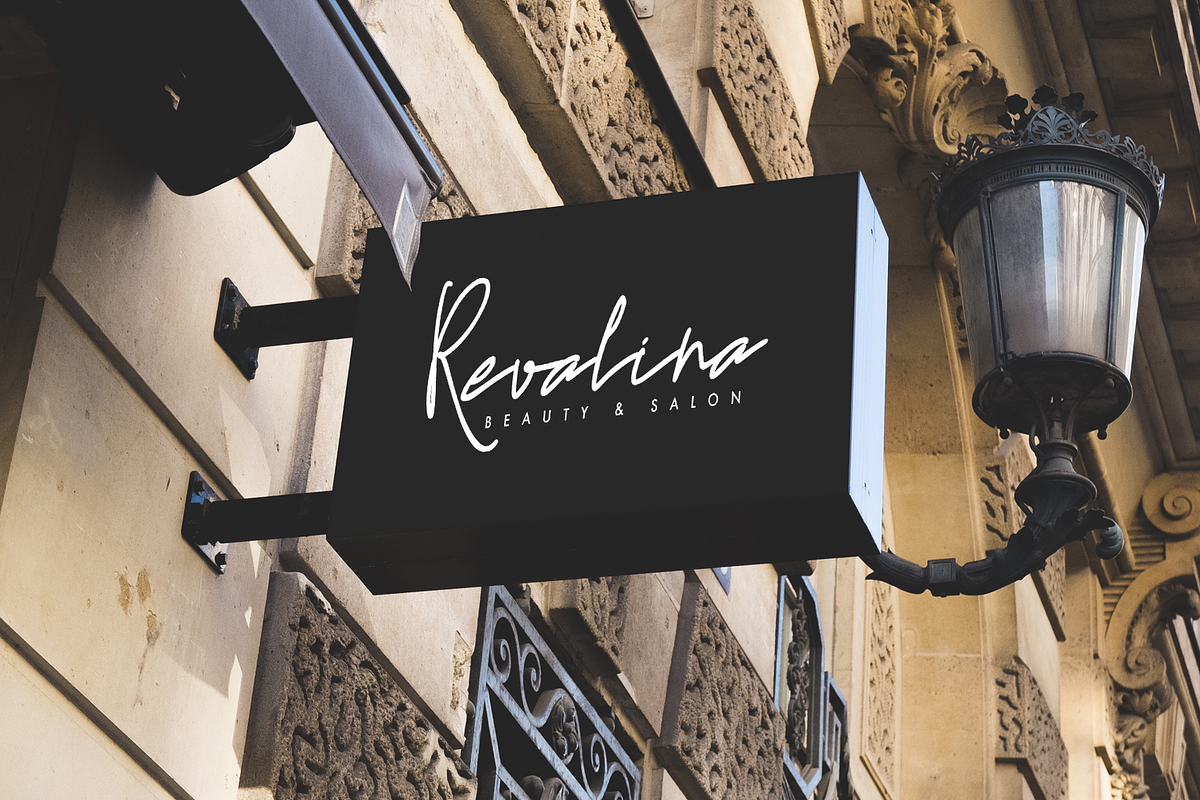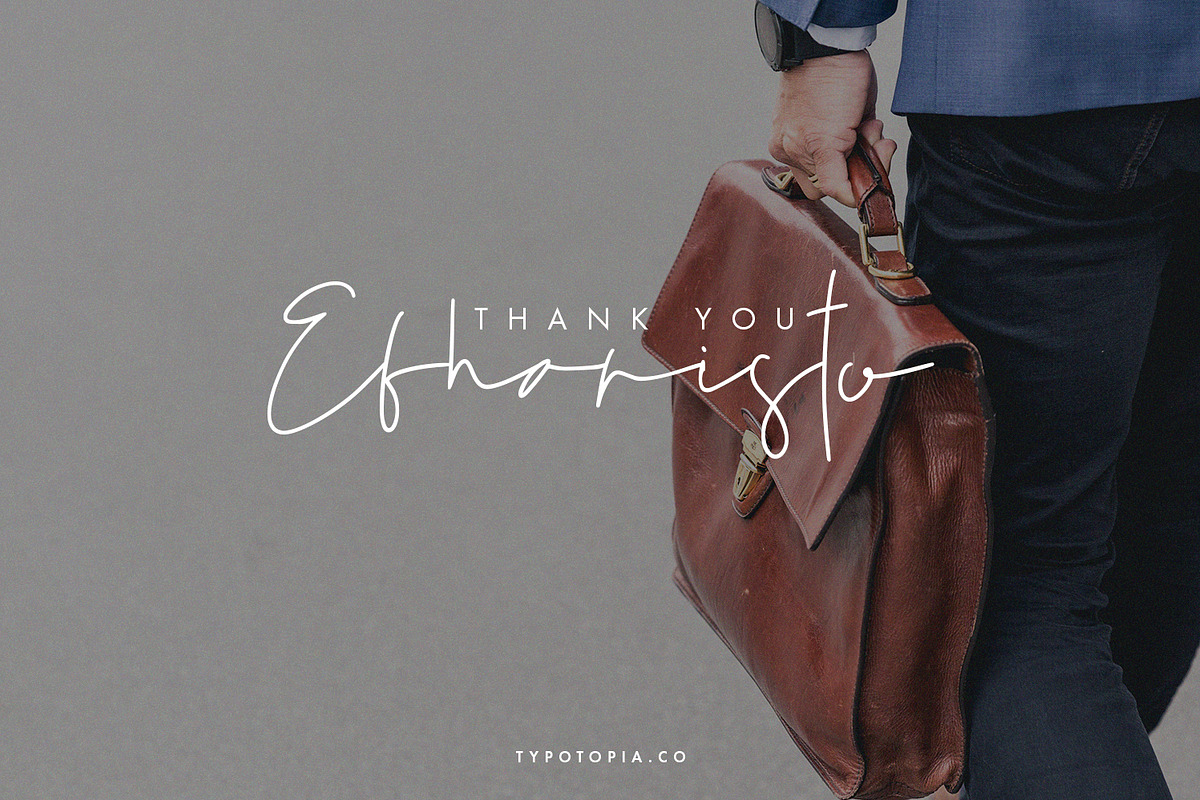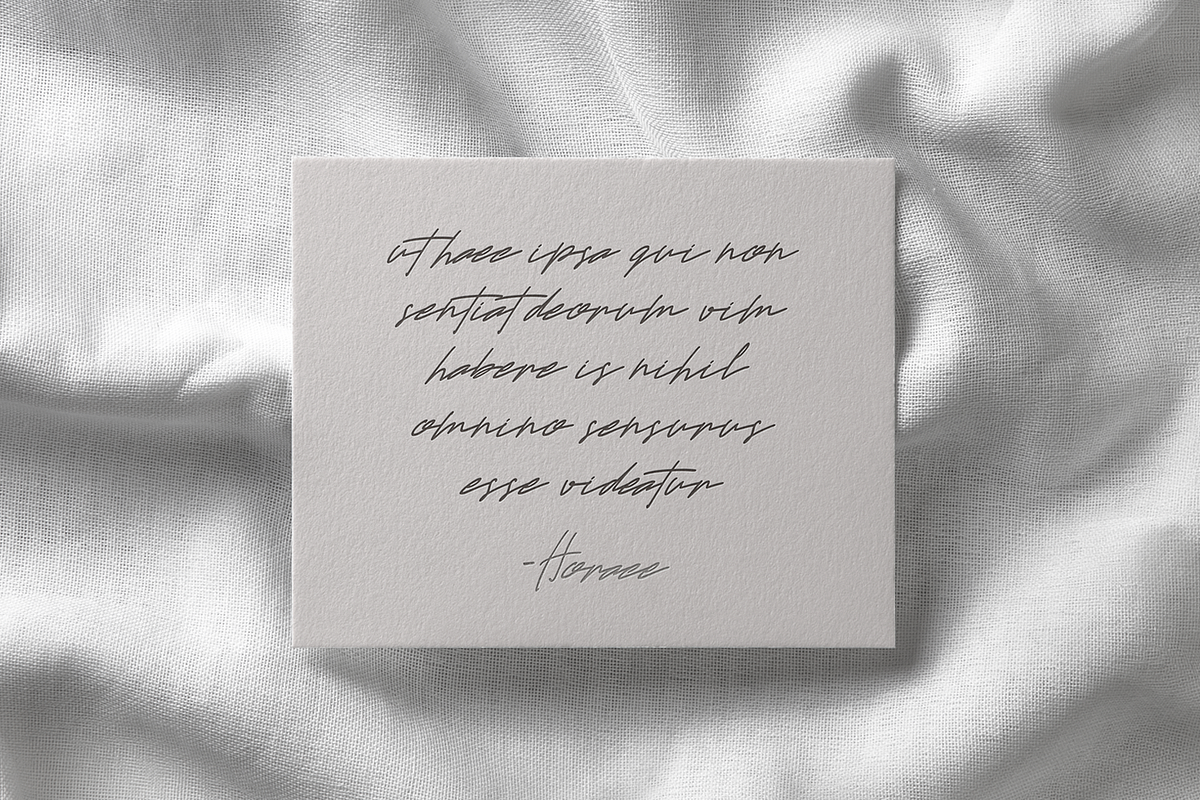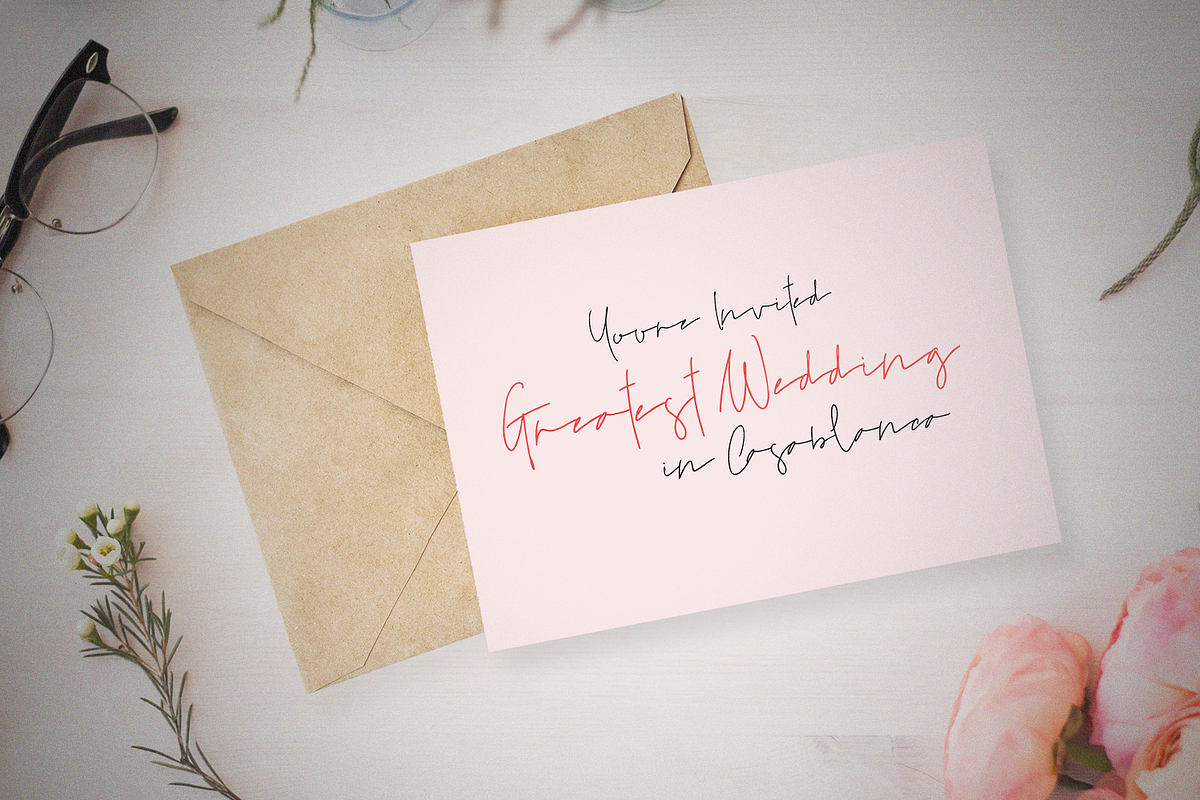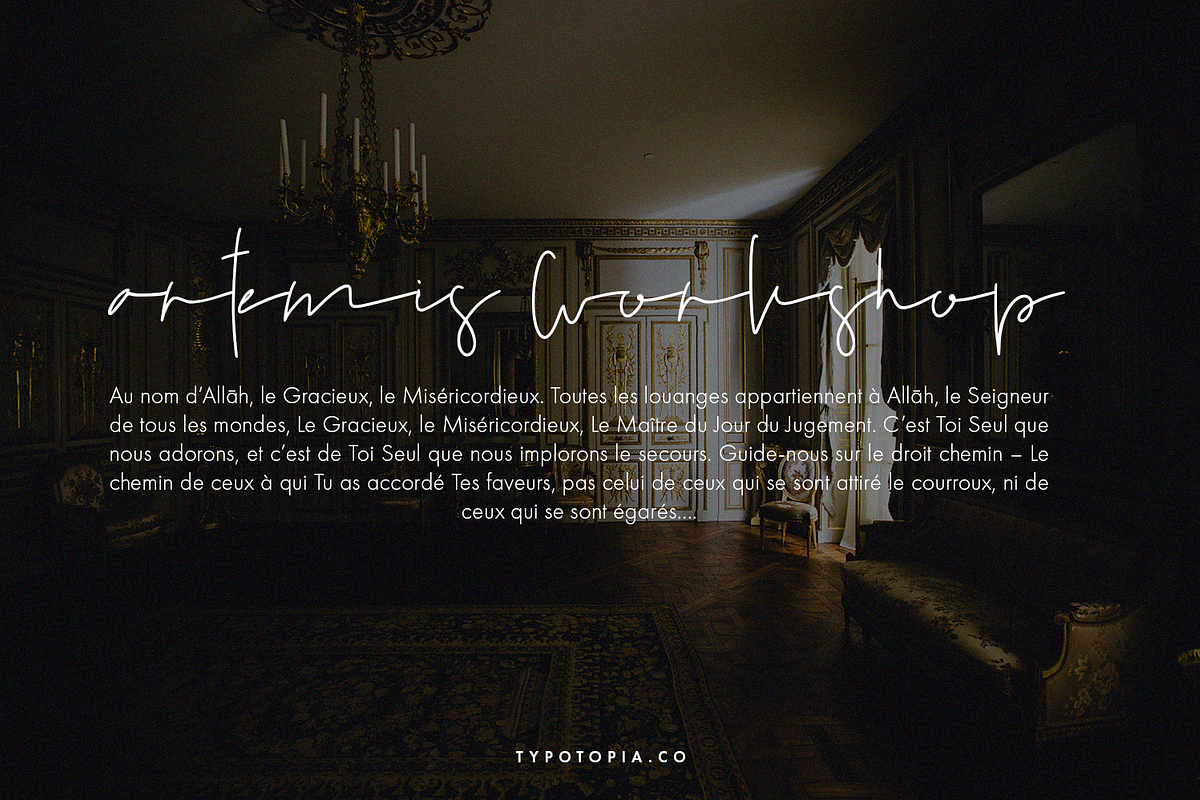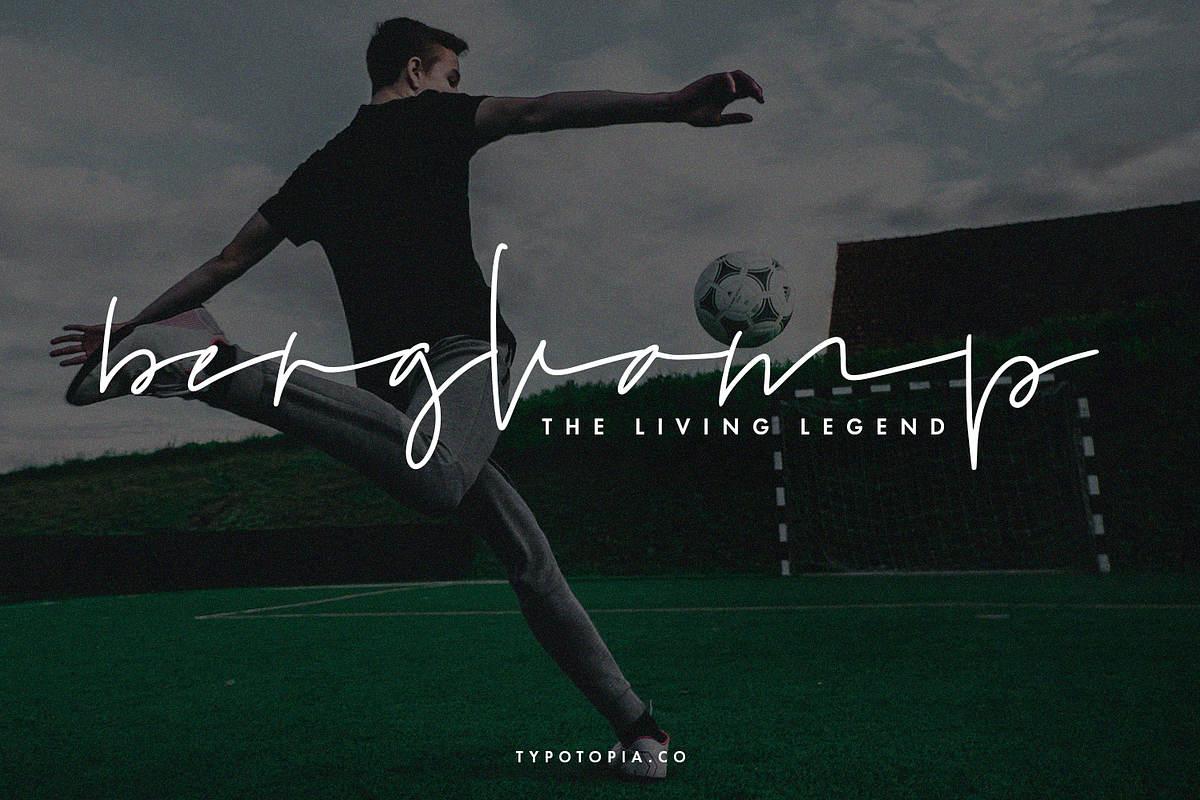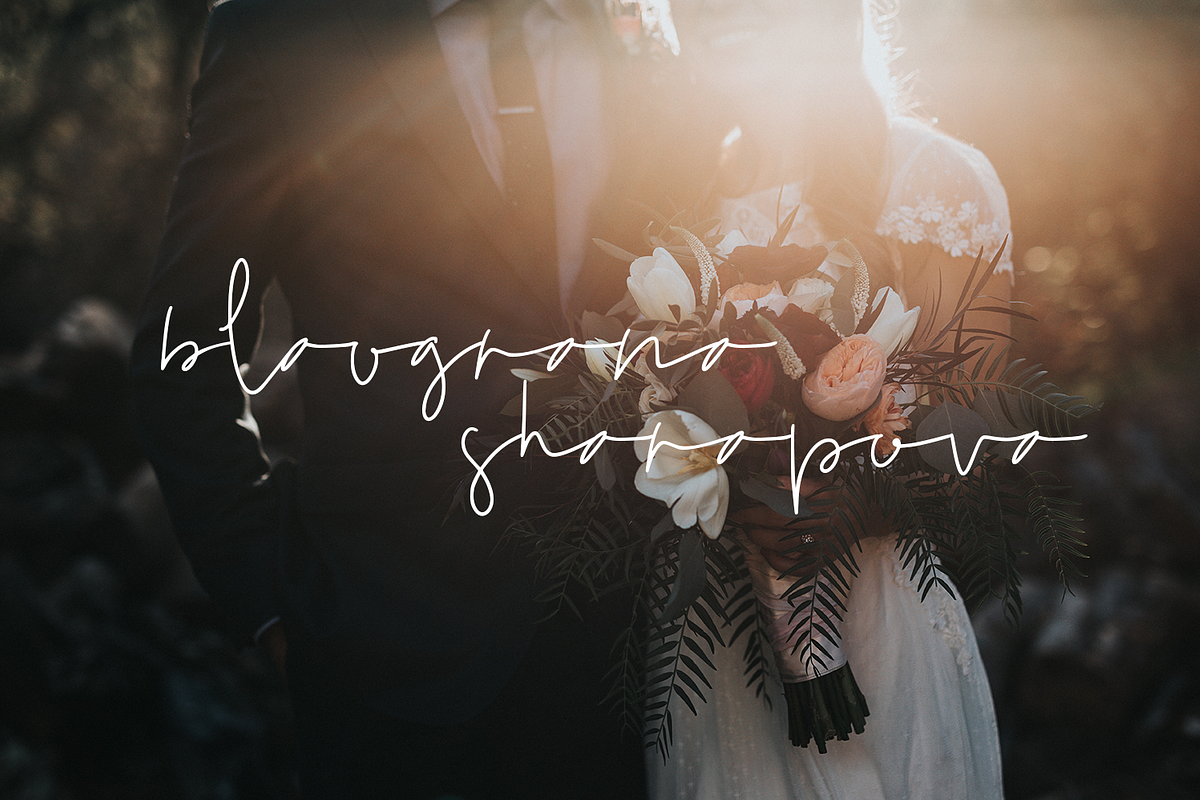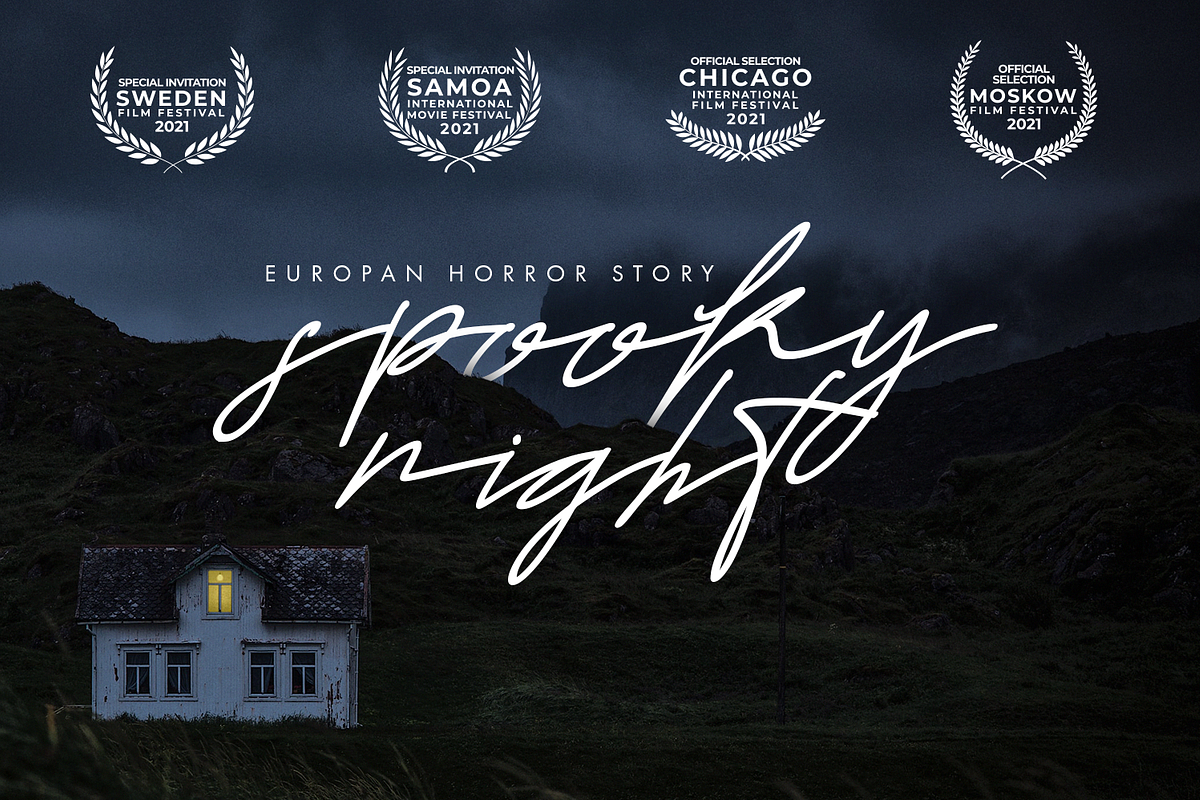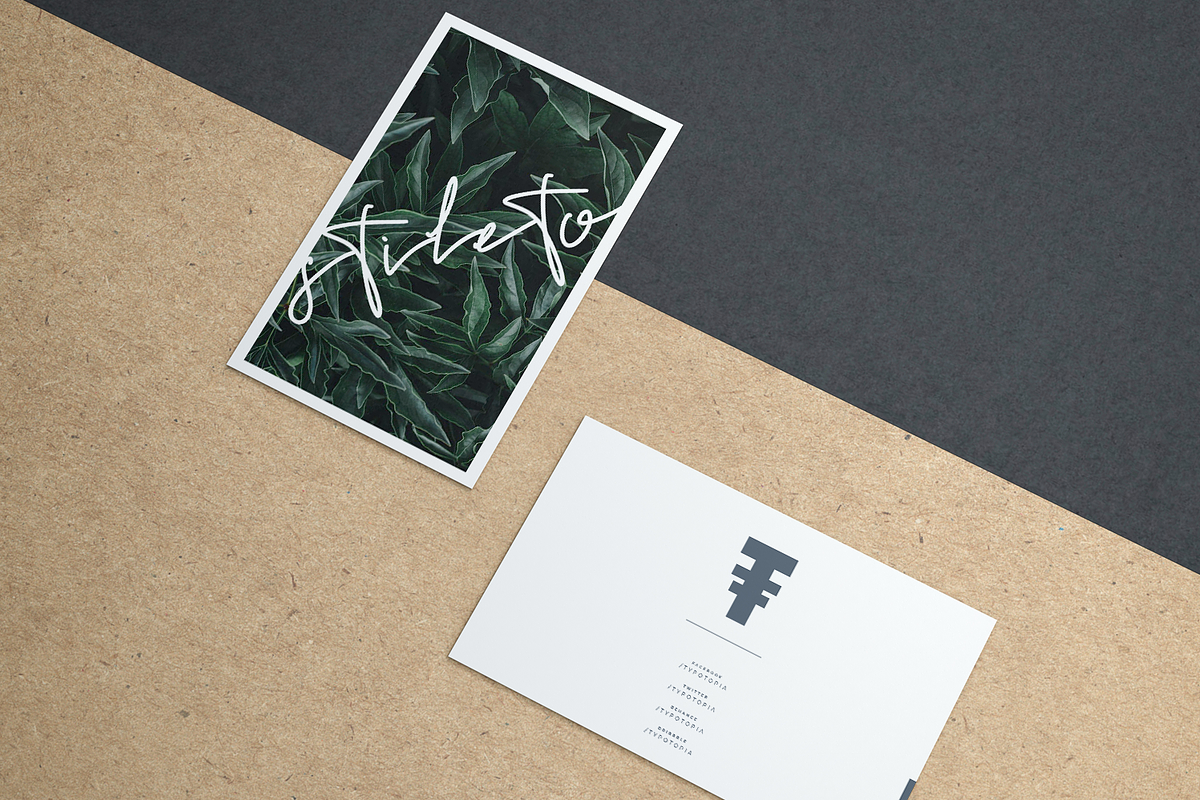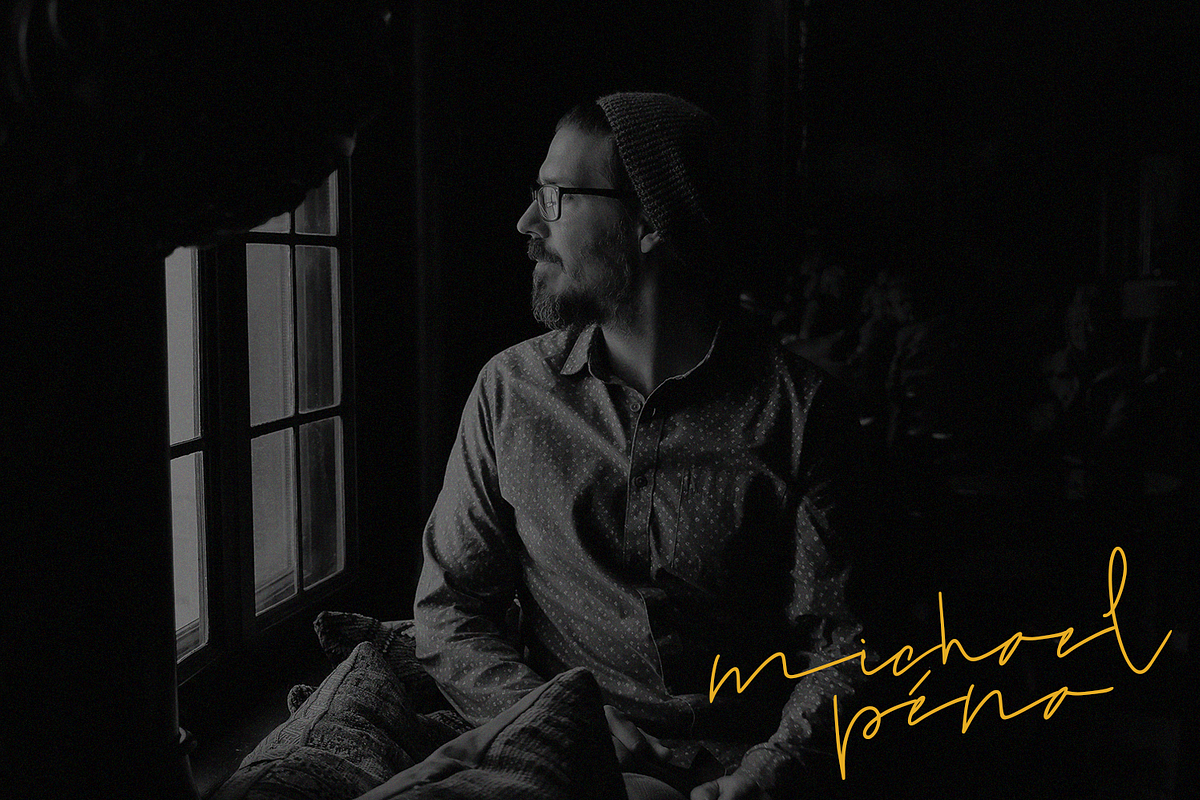
North Grenada Handwritten Script
Typotopia Proudly Present The First Fonts made by Our Designers, North Grenada The Stylish Handwritten Fonts. This Fonts Comes with 6 Elegant Variations. Every single letters have been carefully crafted to make your designs looks better.
North Grenada Font is the great choice for several purpose, such as watermark, signature, signature-styled logo, business card design, quotes, album cover, invitation letter, stationery, and many other design project that need handwriting taste.
North Grenada also Support Multilingual Feature for Foreign Language, here’s the list :
áäåãéèëìïîòöôøùüAÀÁÂÃÄÅEÈÉÊËIÌÍÎÏNÑOÒÓÔÕÖUÙÜÚÛYÝŸ?Ÿ
What are the main Features on This Fonts :
- Uppercase & Lowercase letters
- Ligatures (Come in Next Update)